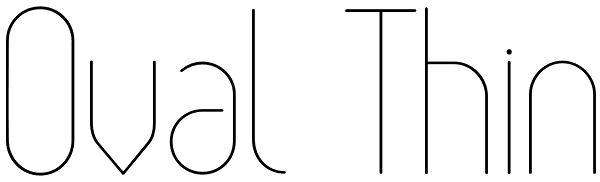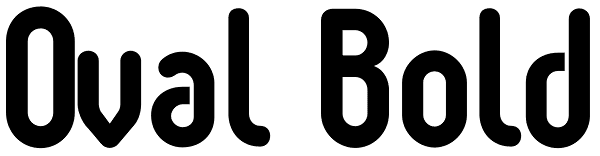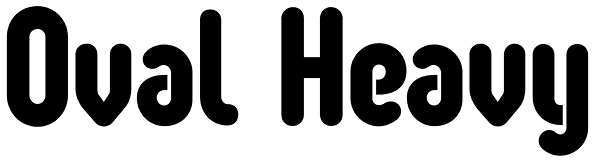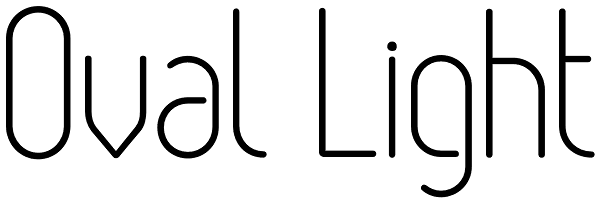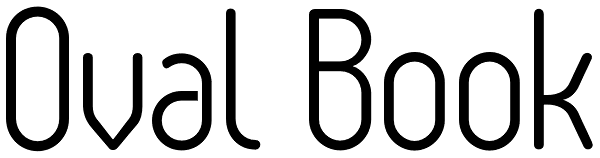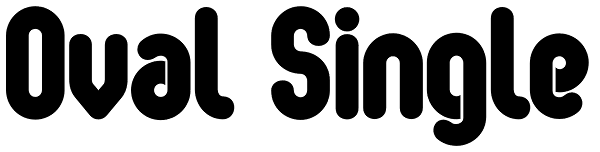
Oval
Oval is a custom sans font which is applicable for any type of graphic design - web, print, motion graphics etc and perfect for t-shirts and other items.